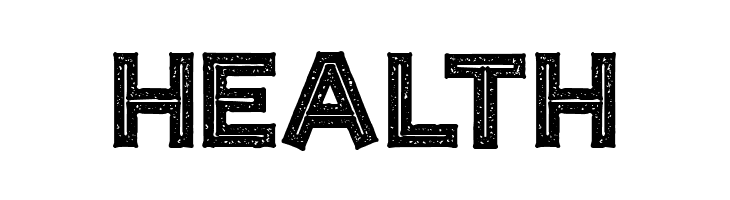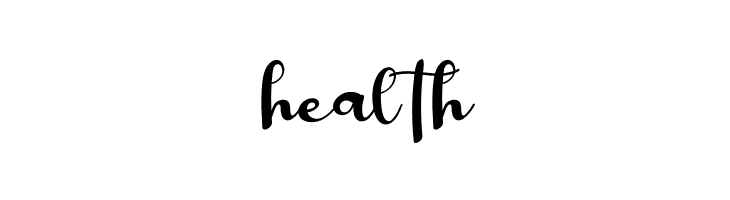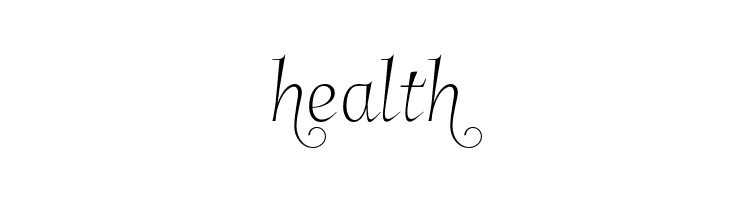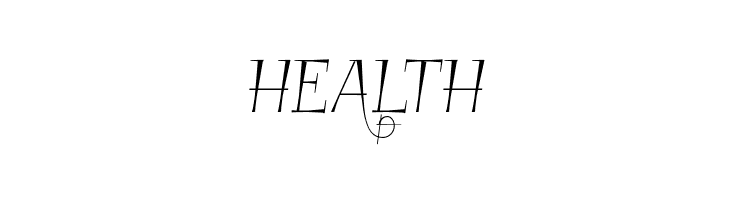
A bold, decorative font with a grunge texture and vintage appeal.
A lively and elegant script font with fluid, connected letterforms and expressive curves.
A bold, flowing script font with elegant curves and high legibility.
A classic serif font with elegant lines and a sophisticated appearance.
An elegant script font with flowing lines and intricate swashes.
An elegant and sophisticated font with flowing lines and a slightly slanted style.
An elegant, italic font with smooth, fluid strokes and moderate contrast.
A playful, hand-drawn font with rounded, consistent strokes.
A bold, rounded font with a playful and approachable style.
A playful, bold, and rounded font with smooth letterforms.